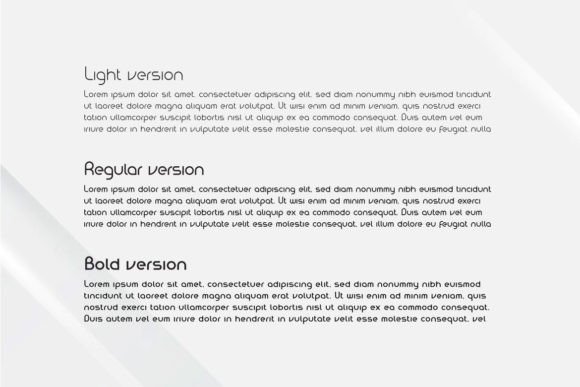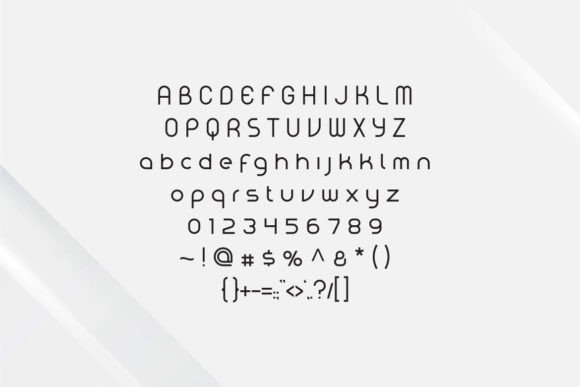
Introduction to Smart Plan Font Font
Fonts play a crucial role in design, and the Smart Plan Font font is a typeface that brings both character and versatility to any project. Whether you’re working on a branding project, a website, or a print design, the Smart Plan Font font offers a unique style that can elevate your work.
Smart Plan is a clean and simple sans serif font.
No matter the topic, this font will be an incredible asset to your fontsβ library, as it has the potential to elevate any creation .
Key Features of Smart Plan Font Font
Why Choose Smart Plan Font Font?
The Smart Plan Font font is more than just a typeface β it’s a design tool that helps you communicate your message with style and clarity. Its unique character set and versatile design make it suitable for a wide range of applications, from elegant invitations to bold headlines.
With its carefully crafted letterforms and balanced proportions, the Smart Plan Font font ensures readability and visual appeal across all mediums.
What makes Smart Plan Font font special?
The Smart Plan Font font stands out with its unique design, exceptional readability, and versatility across various design applications.